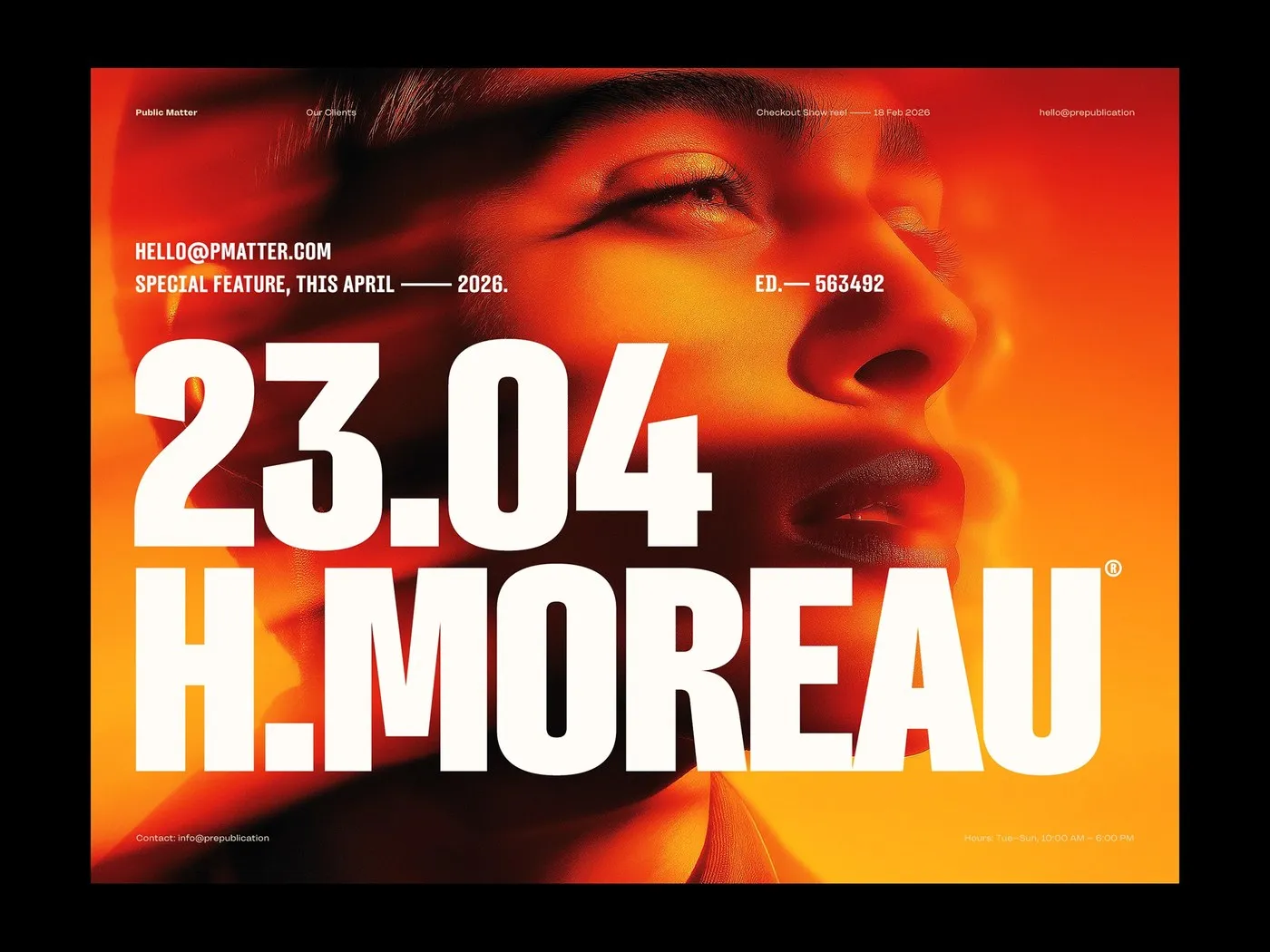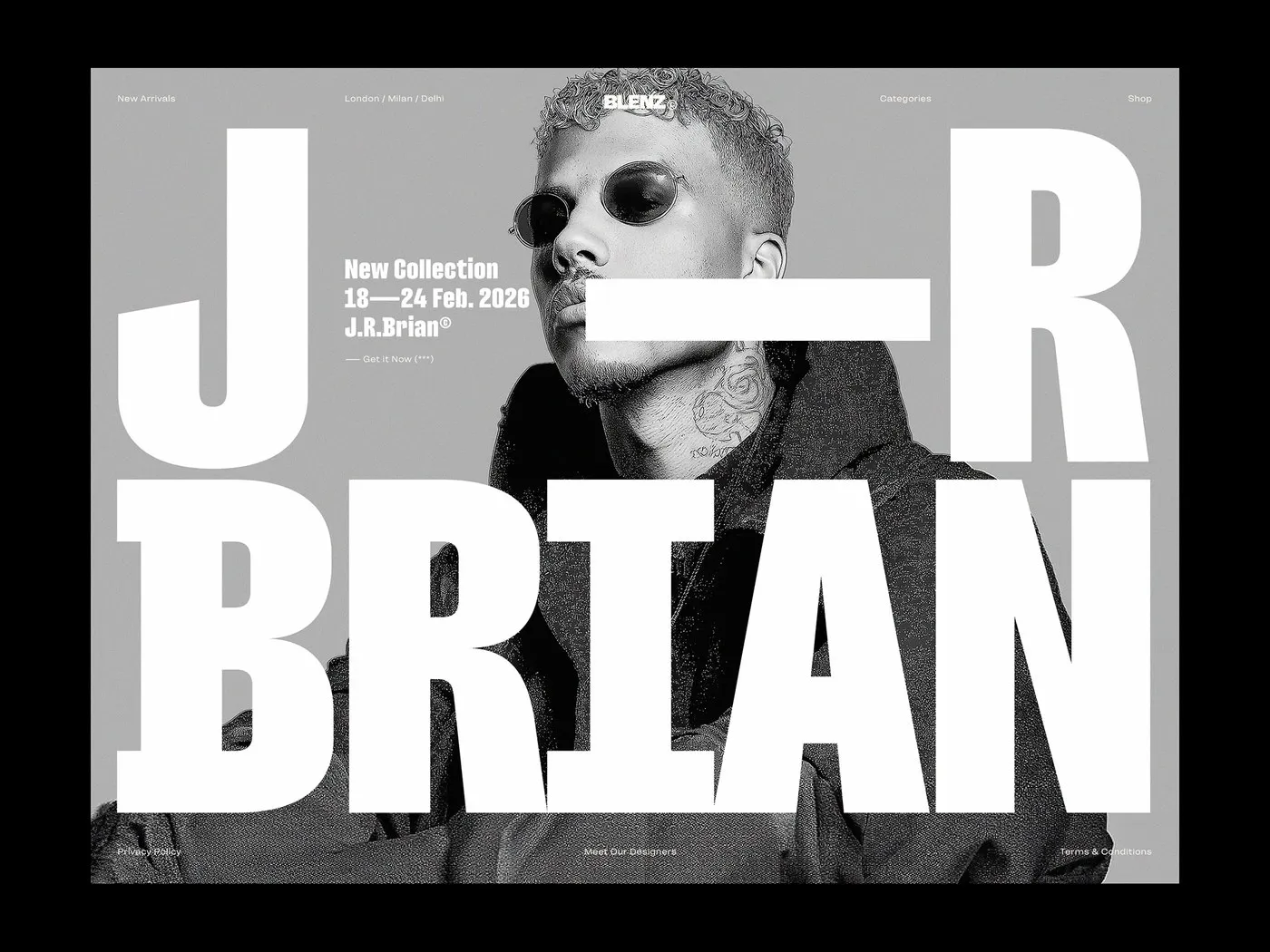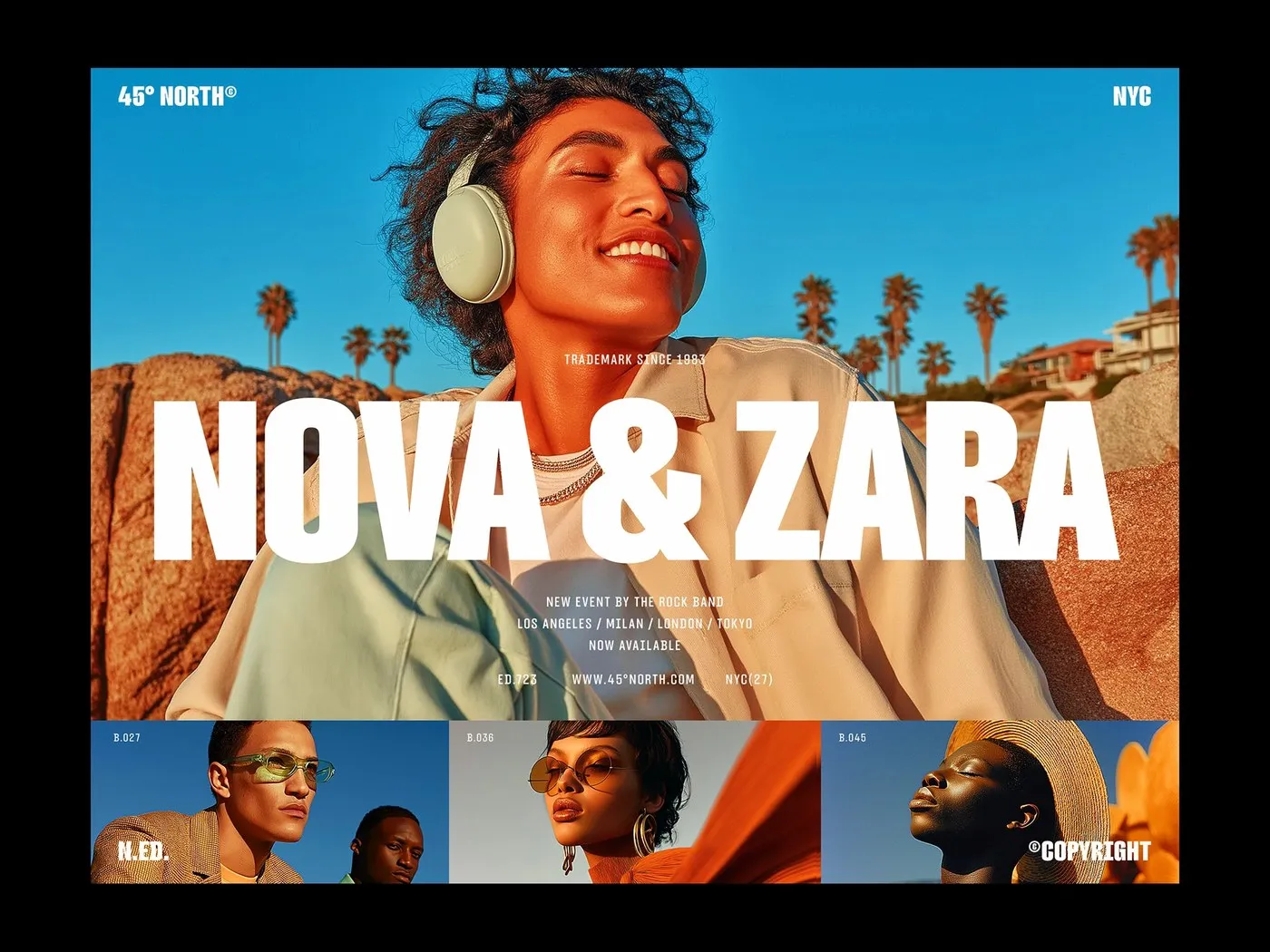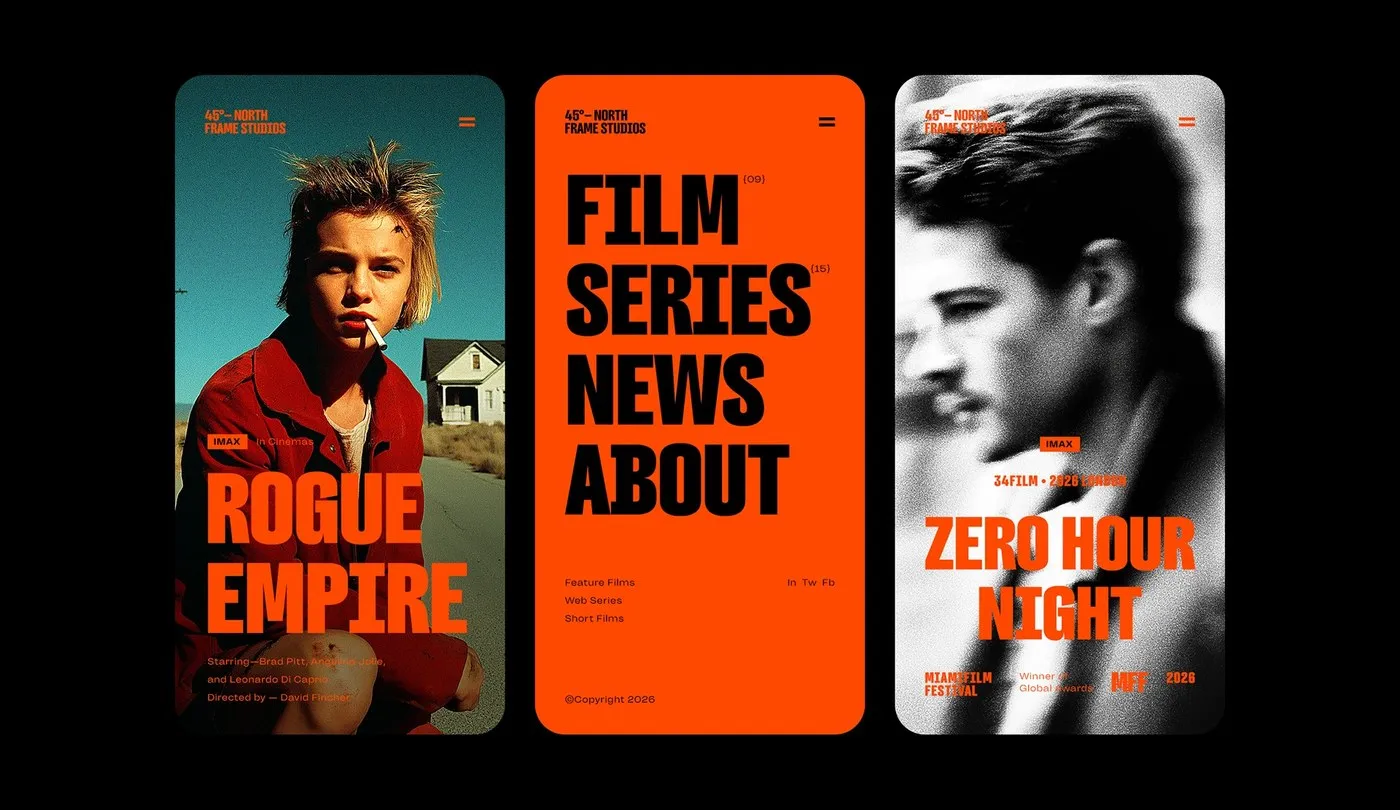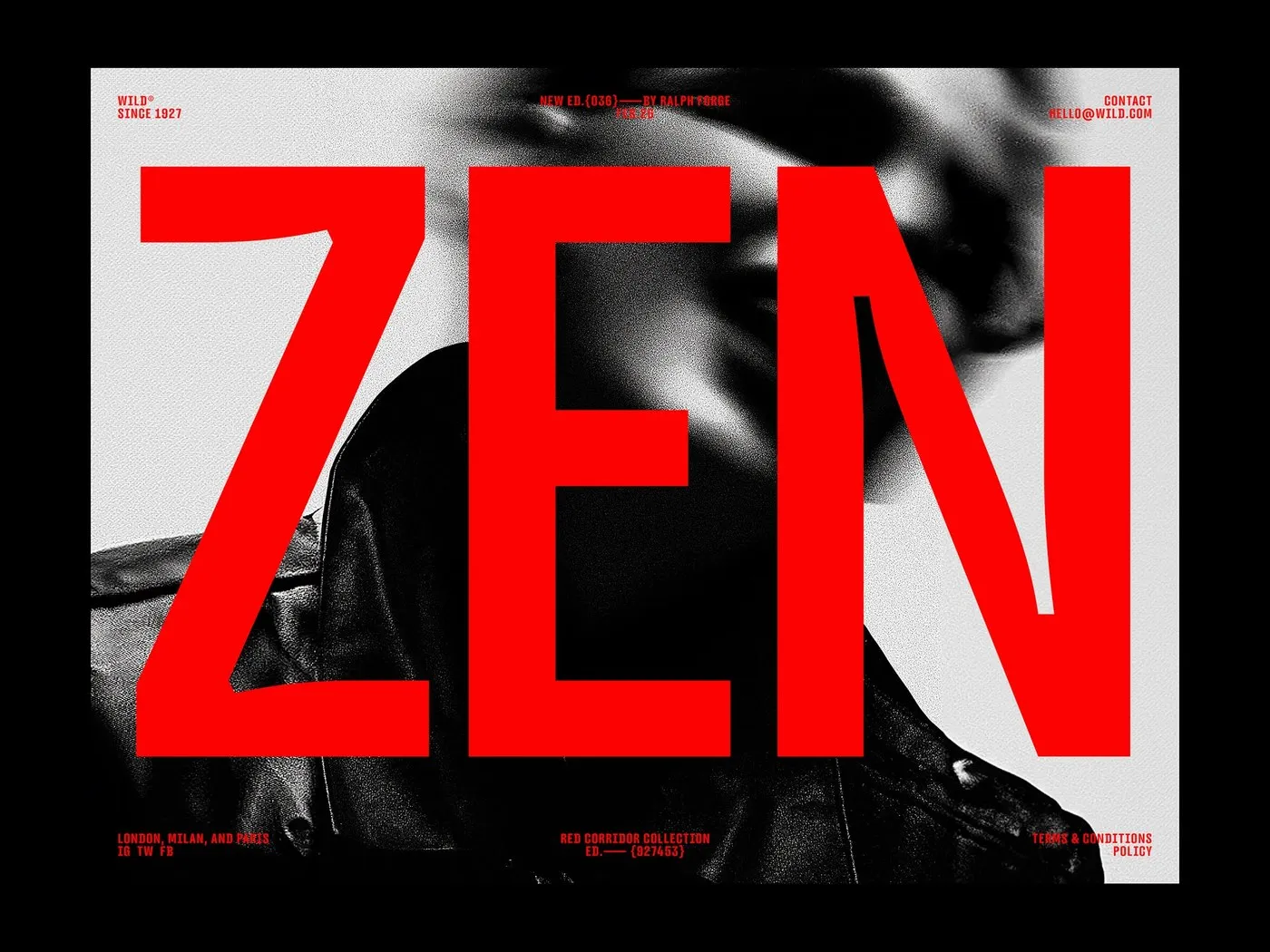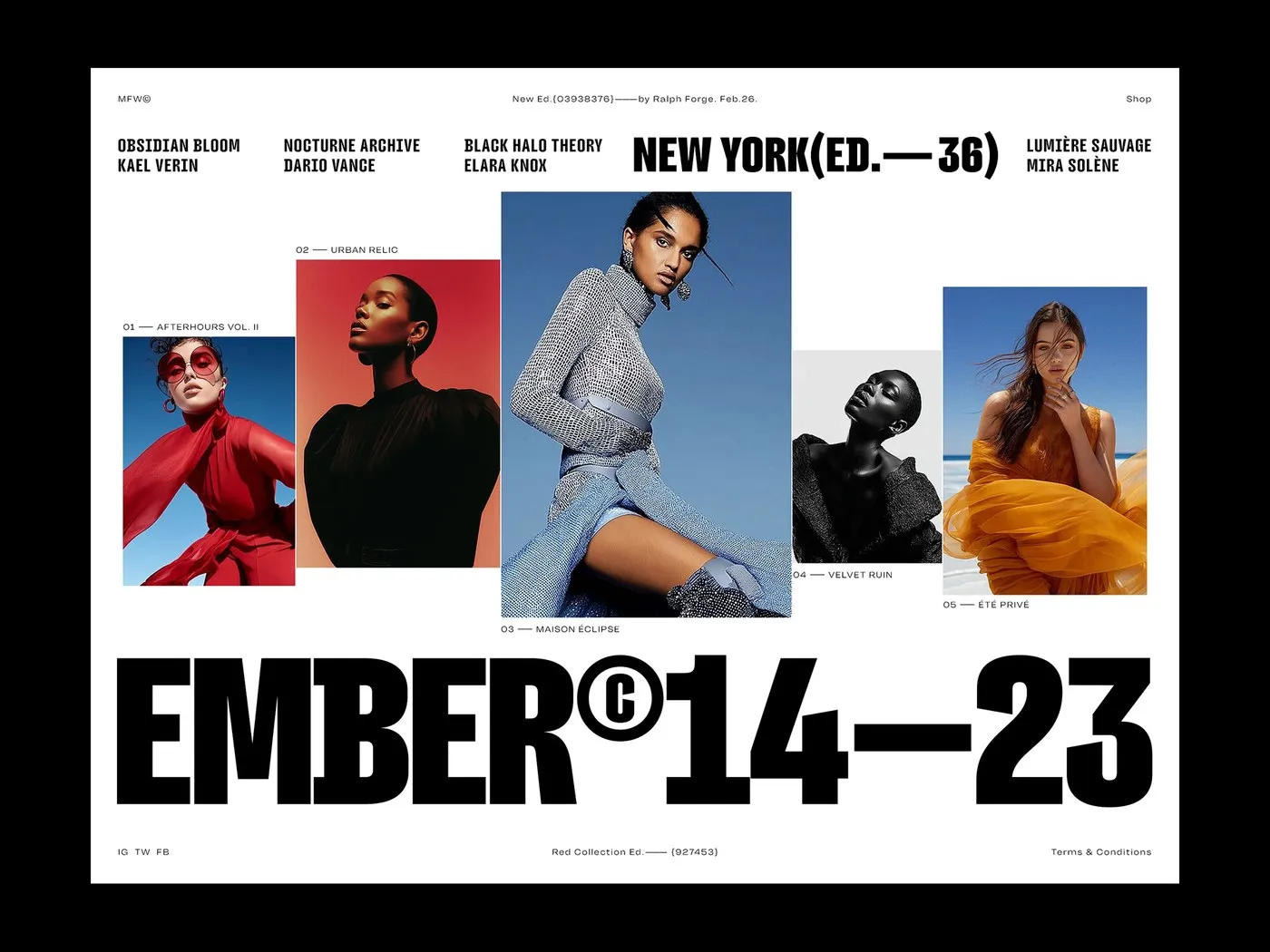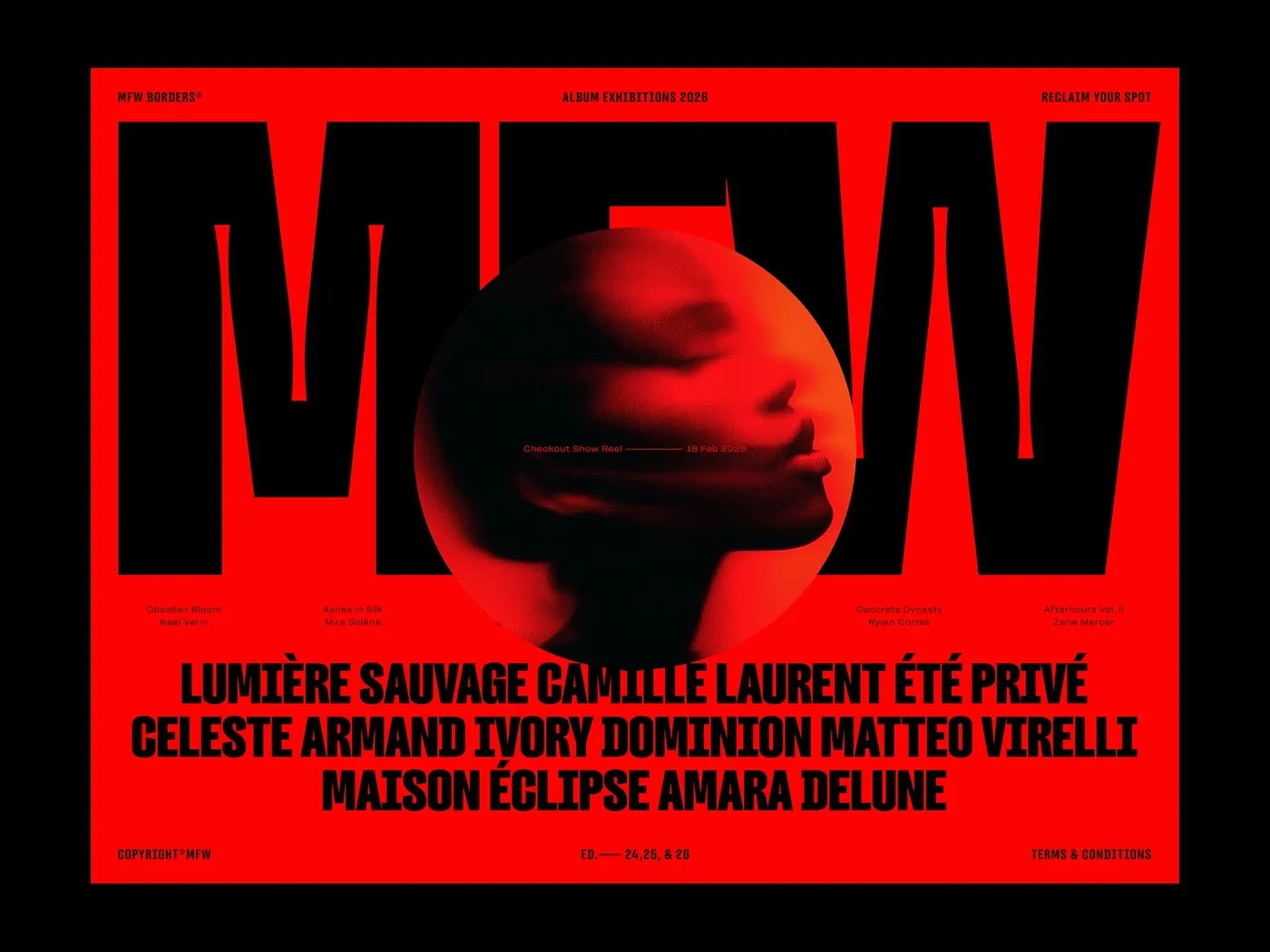
Filming Typeface: A Cinematic Condensed Font by Rajesh Rajput
Searching for a tall, sleek font that makes movie titles and posters instantly eye-catching? Filming Typeface by designer Rajesh Rajput is a fantastic standout choice. This condensed display typeface delivers a bold, boxy profile full of distinct character.
What immediately stands out about Filming is its flattened, boxy shape combined with ultra-tall letterforms and tight inner counters. The striking contrast between super-thick strokes and narrow gaps creates a powerful visual rhythm, helping titles pop clearly across any composition.
18 Versatile Styles with a Variable Axis This font family offers 18 styles across 9 weights, ranging all the way from ultra-delicate hairline to super-bold heavy black. Thanks to an integrated variable axis, stroke thickness adjusts seamlessly to fit any creative need.
Tightly optimized letter spacing makes fitting long words into narrow spaces effortless, all without sacrificing clarity. From book covers and large-format posters to screen interfaces, this typeface consistently maintains crisp lines and a solid structure.
Visual Impact and Print Quality In print specimens, Filming pairs brilliantly with high-contrast cinematic imagery. Beyond performing smoothly in digital spaces, this font stays sharp when printed on textured paper, fabric, or via screen printing—keeping tight gaps completely free of ink bleed.
Filming Typeface: Bộ font chữ cô đọng đậm chất điện ảnh từ Rajesh Rajput
Nếu bạn đang tìm kiếm một bộ font chữ dáng cao, gọn gàng và lên tiêu đề phim hay poster cực kỳ hút mắt thì Filming Typeface của designer Rajesh Rajput là một lựa chọn rất đáng chú ý. Đây là họ phông chữ cô đọng (condensed display typeface) mang phong cách hình khối chắc chắn và cá tính.
Điểm gây ấn tượng đầu tiên của Filming là các đường nét bên ngoài được làm phẳng theo phom hộp (boxy profile), kết hợp cùng phần thân chữ cao vút và các khoảng hở bên trong (counters) thu nhỏ. Sự tương phản giữa nét chữ siêu dày và các khe hẹp tạo nên nhịp điệu thị giác mạnh mẽ, giúp tiêu đề nổi bật rõ ràng trên mọi bố cục.
18 kiểu chữ linh hoạt cùng trục Variable
Họ font chữ này bao gồm 18 styles trải dài qua 9 cấp độ nét (weights), đi từ siêu mảnh (hairline) cho đến cực dày (heavy black). Nhờ tích hợp trục biến thể (variable axis), các thiết kế có thể chuyển đổi độ dày nét vô cùng mượt mà để phù hợp với từng mục đích sử dụng.
Khoảng cách giữa các ký tự được tối ưu khá sát nhau, giúp xếp gọn các từ dài vào khoảng không gian hẹp mà không làm mất đi độ rõ ràng. Từ bìa sách, poster khổ lớn cho đến giao diện màn hình, bộ font này luôn giữ được đường nét sắc nét và cấu trúc chắc chắn.
Hiệu ứng thị giác và khả năng in ấn
Trên các bản in thử nghiệm (specimen), Filming thể hiện sự ăn ý tuyệt vời khi kết hợp cùng hình ảnh điện ảnh có độ tương phản cao. Không chỉ hoạt động mượt mà trên môi trường kỹ thuật số, phông chữ này khi in lên giấy thô, chất liệu vải hay in lưới (screenprint) vẫn giữ nguyên độ sắc sảo, hoàn toàn không bị dính mực ở các khoảng hẹp giữa các nét.